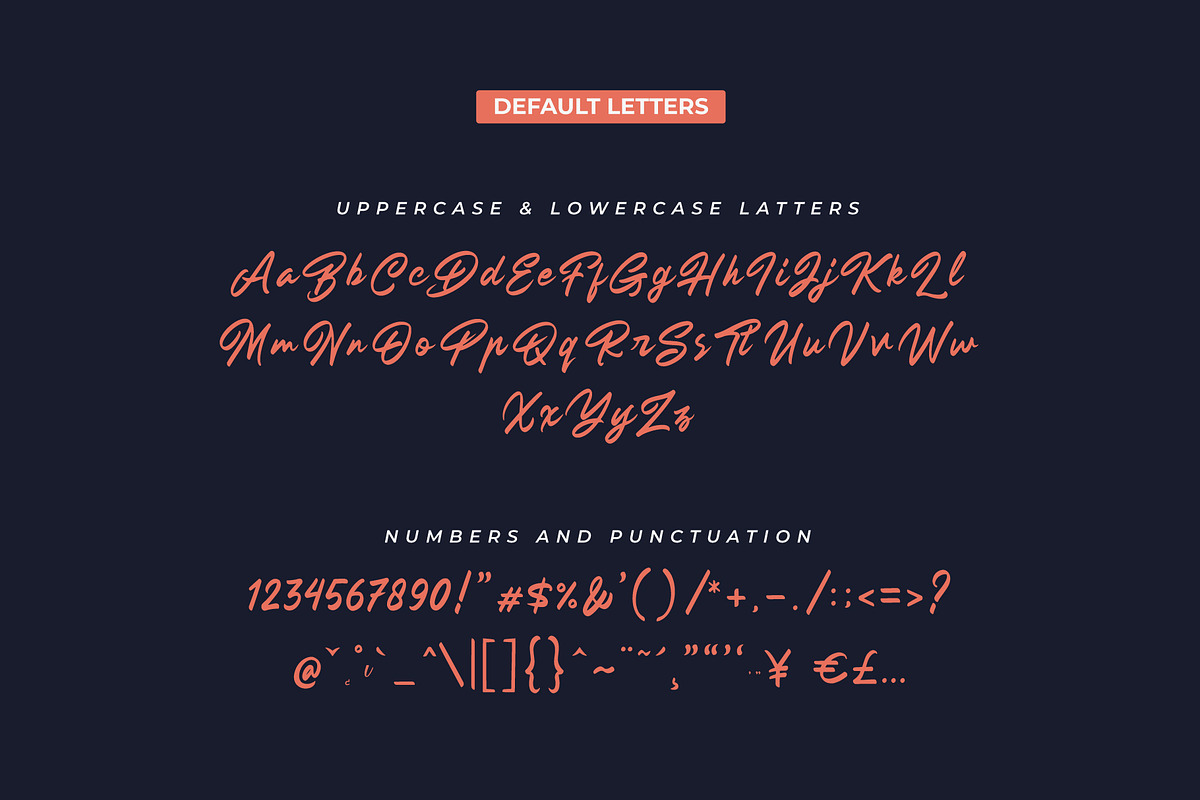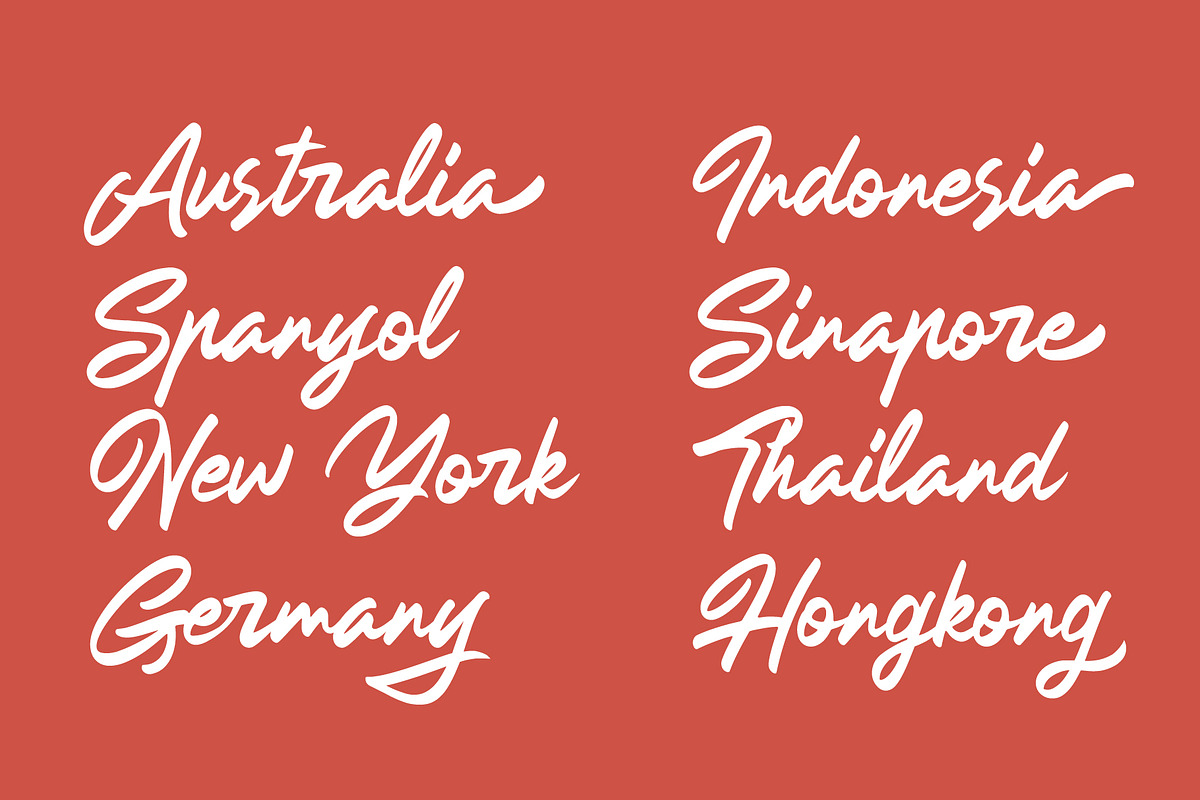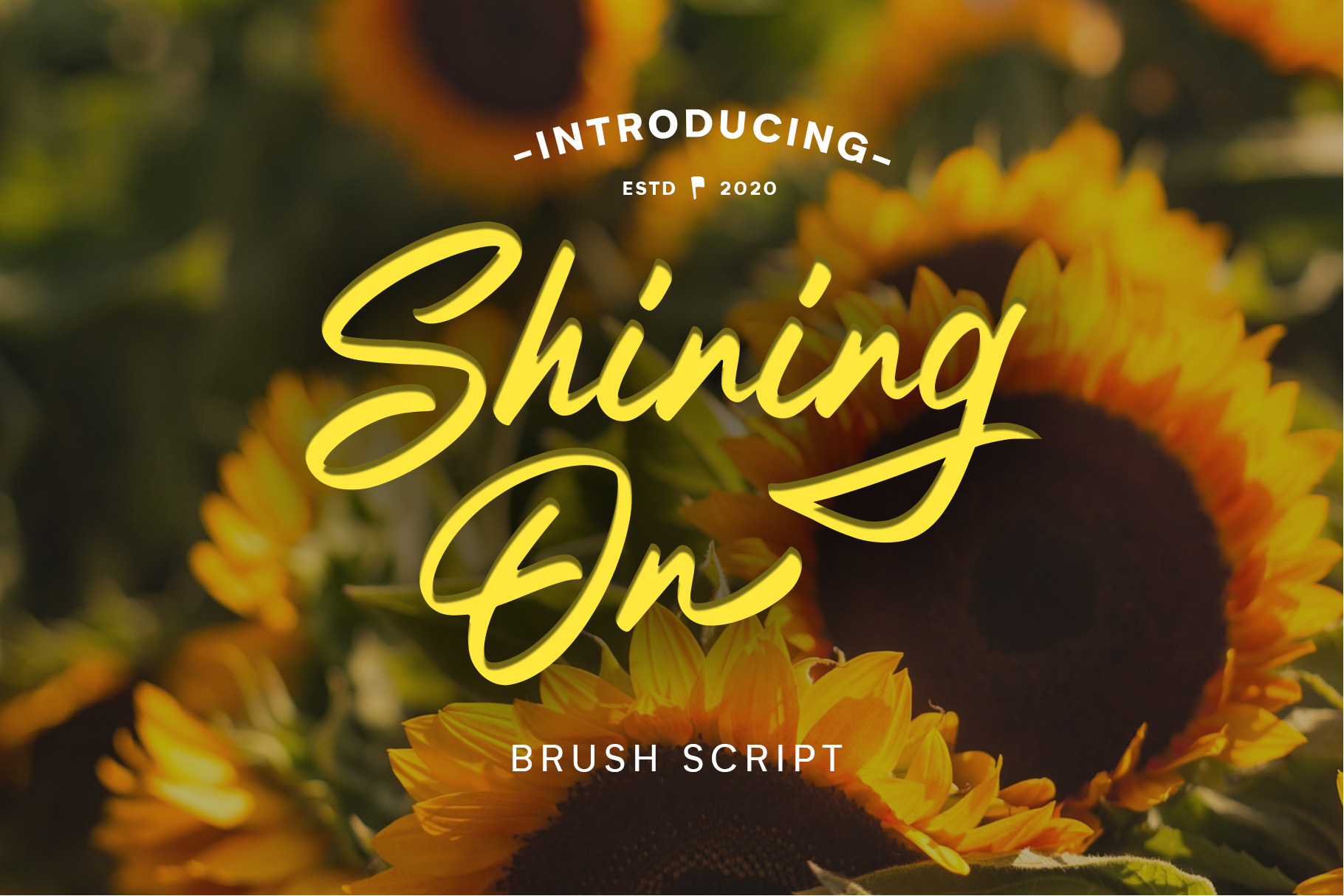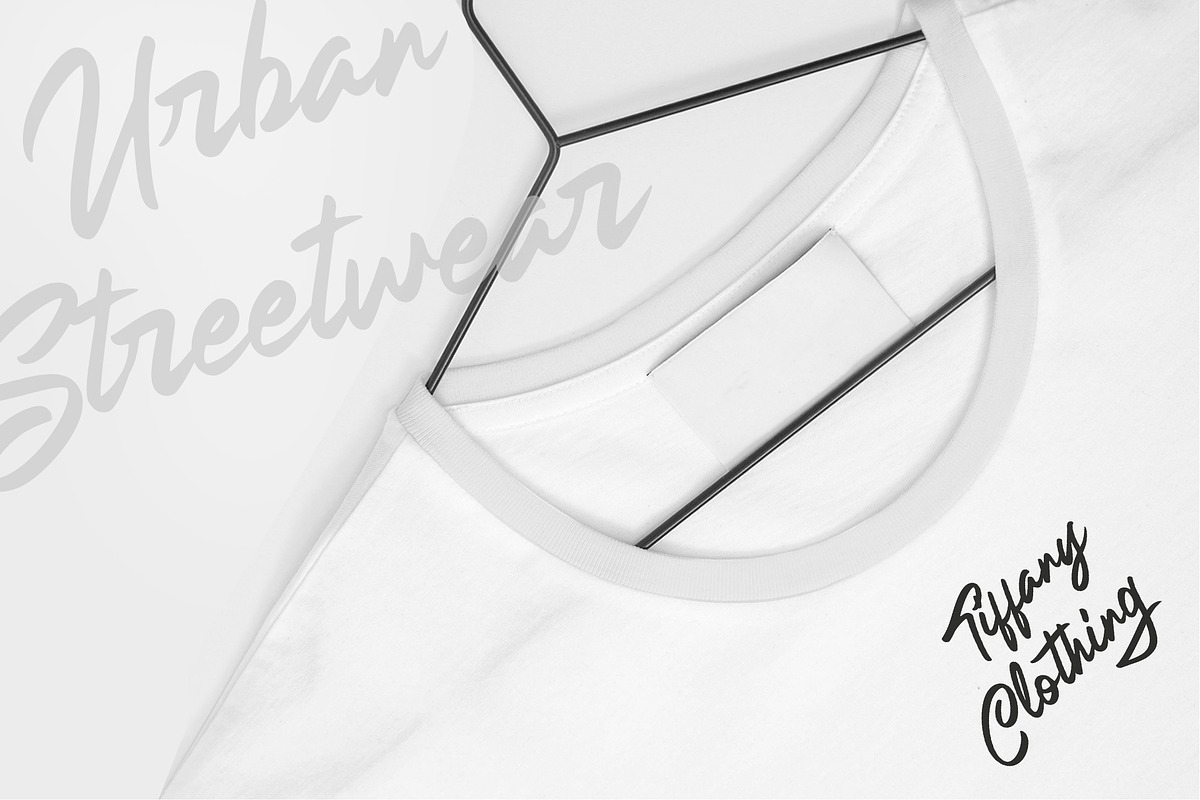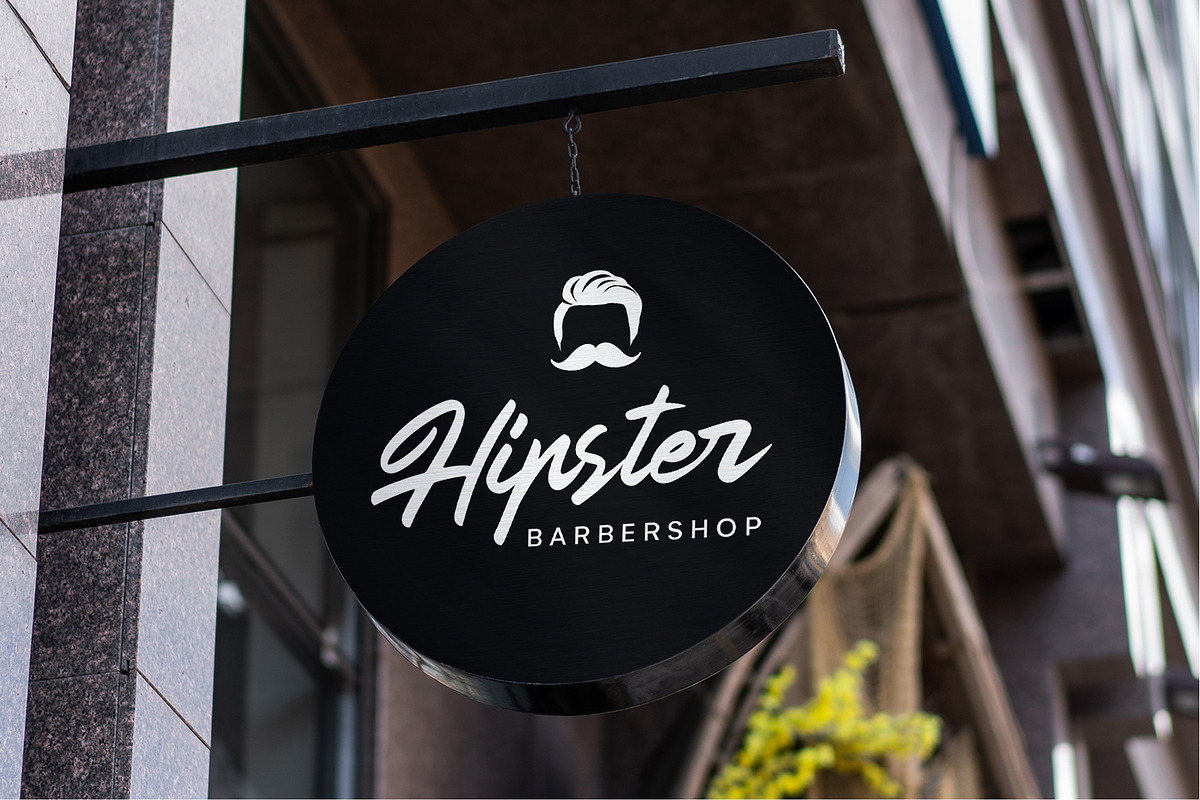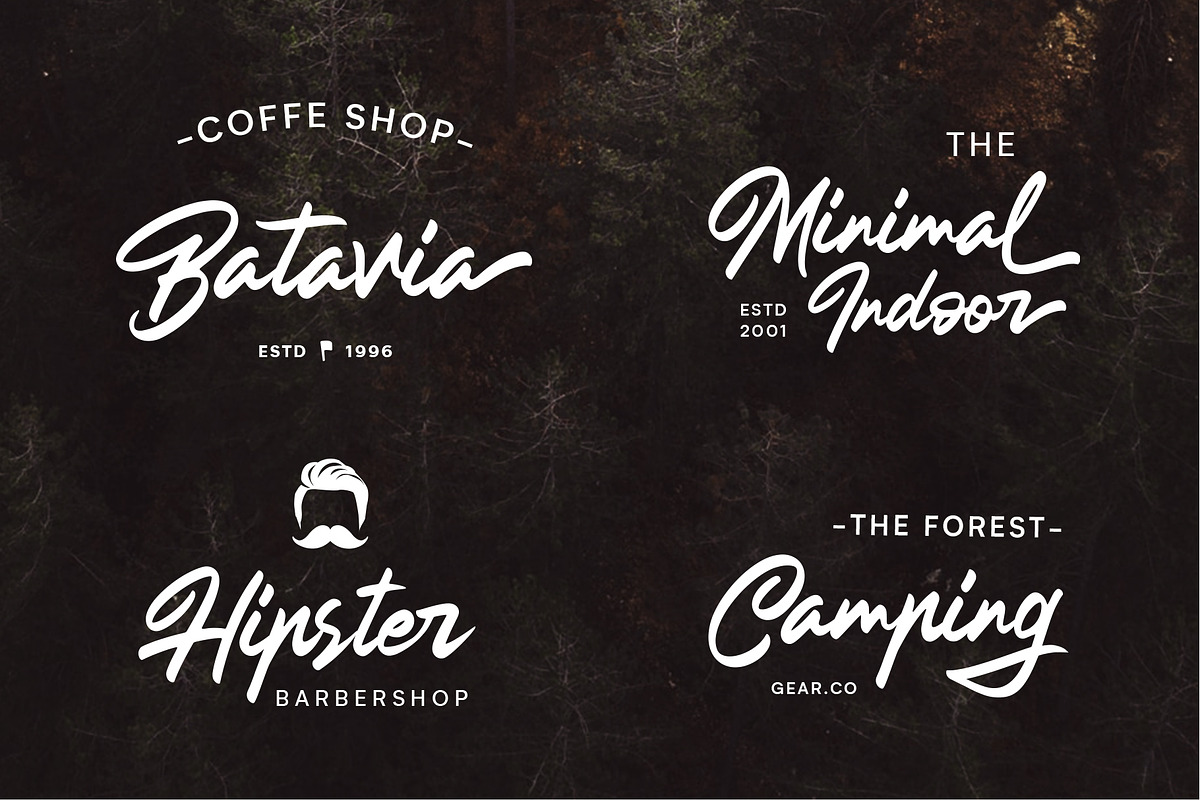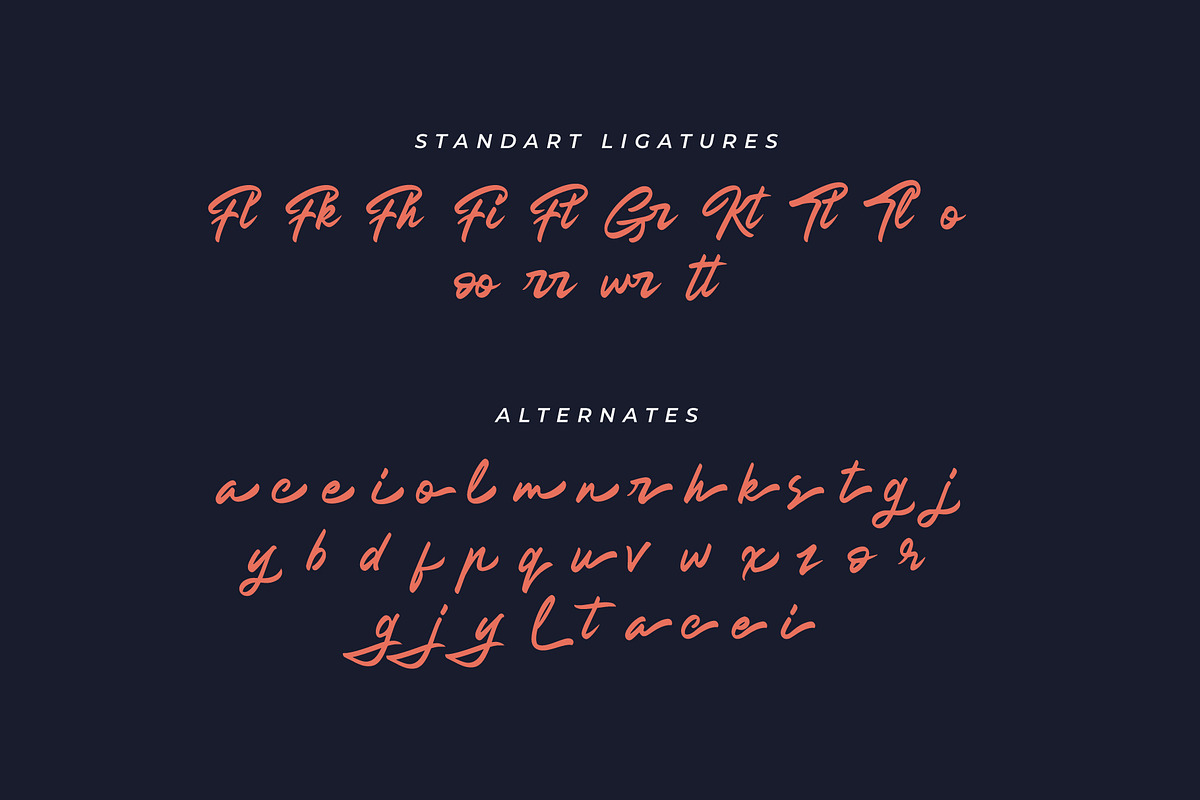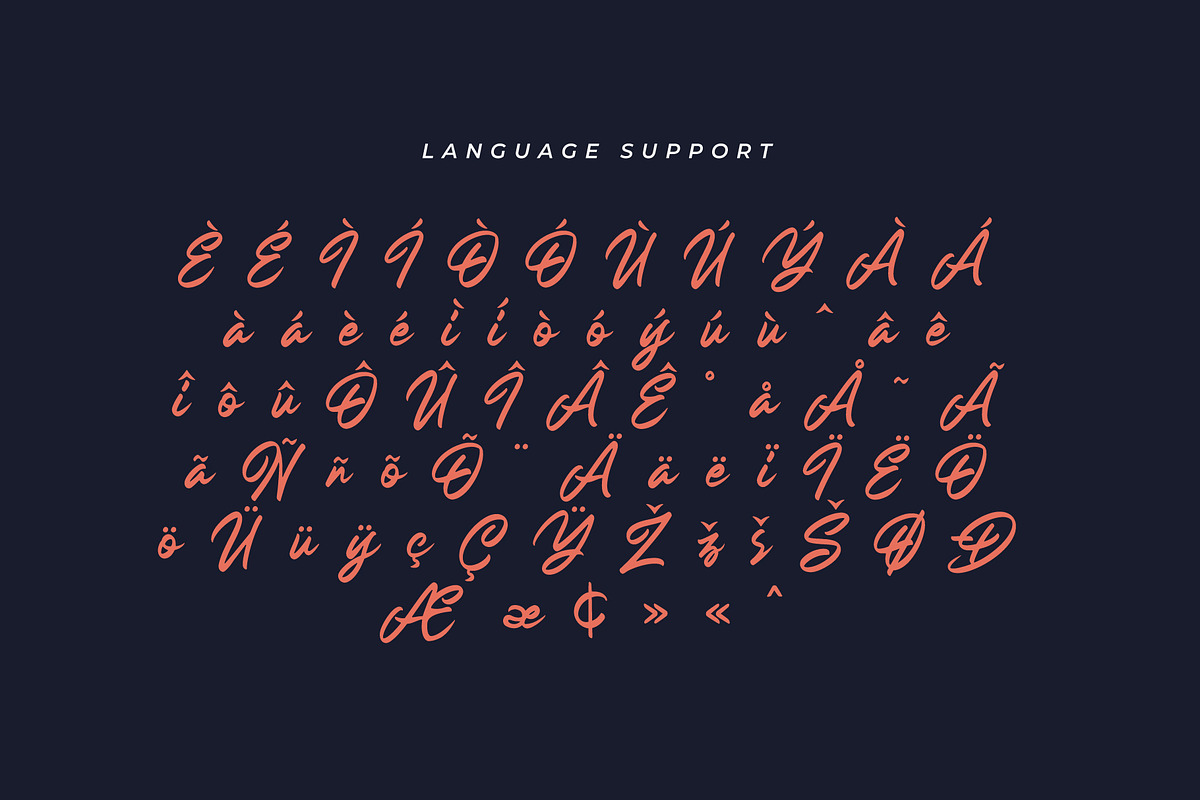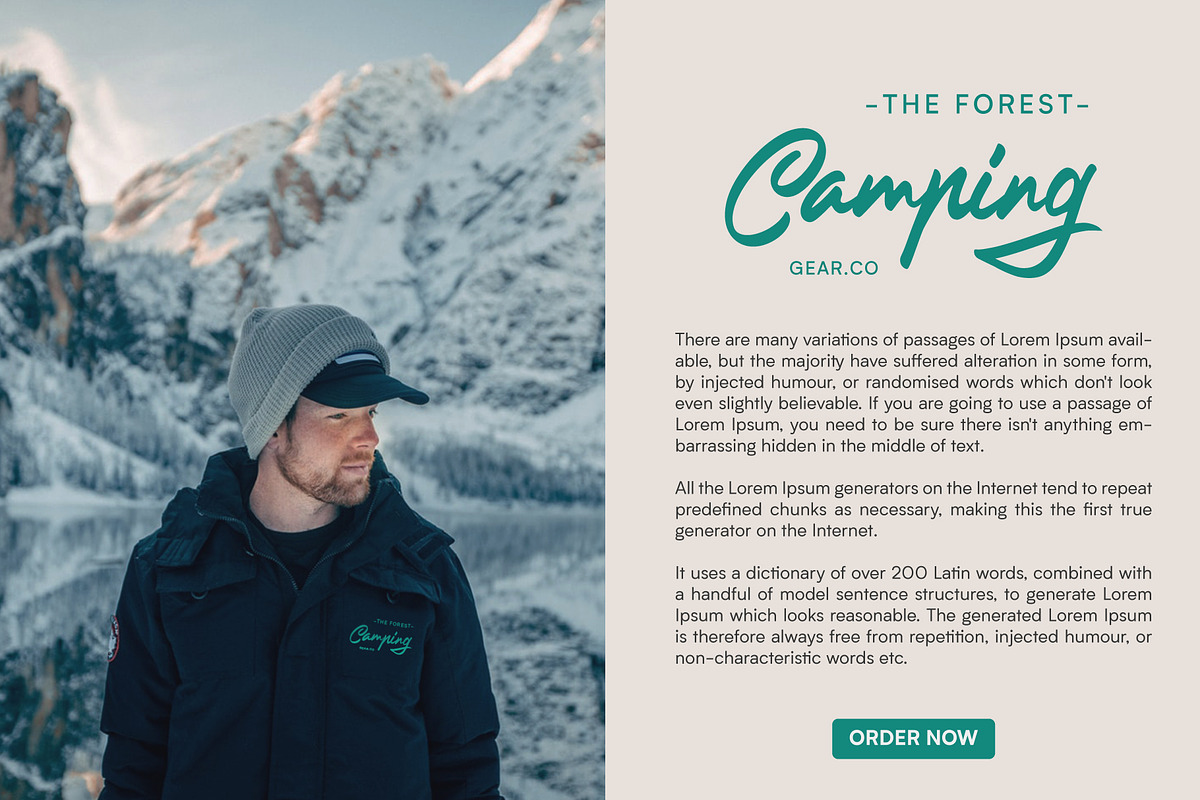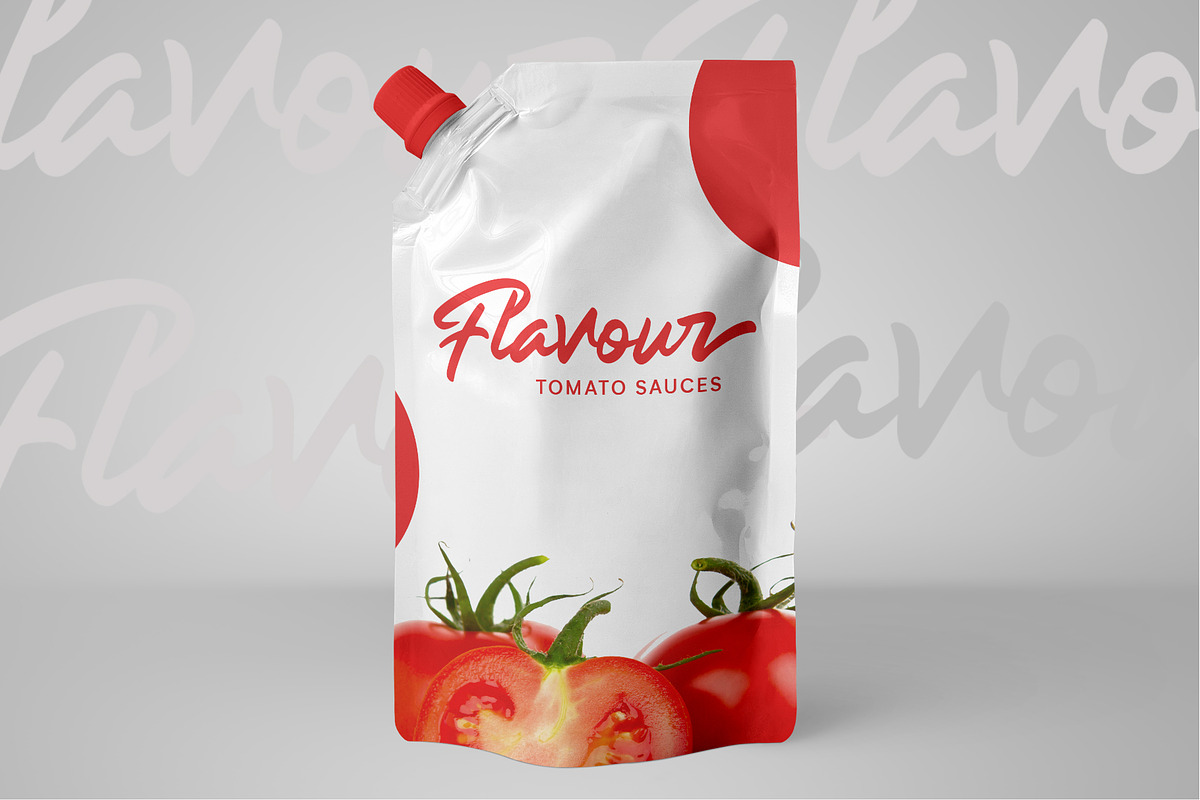
Shining On Brush Font
Shining On Brush Font is a modern script font that feels beautiful classy, elegant, and modern. It is perfectly suited for a wide variety of projects, as to signature, stationery, logo, wedding, typography quotes, magazine or book cover, website header, clothing, branding, packaging design and more.
This font available: OTF, TTF, Multilingual Support, It also features a wealth of special features including alternate glyphs and ligatures. Easy to instal Mac and Windows.